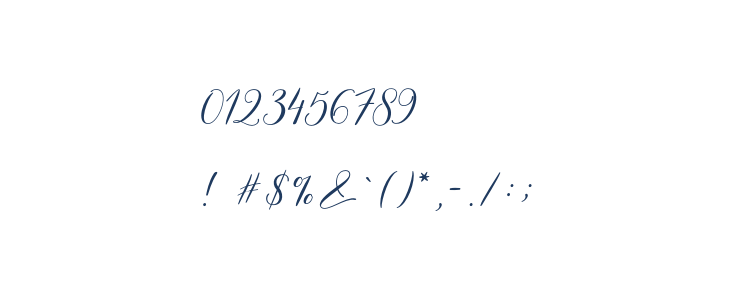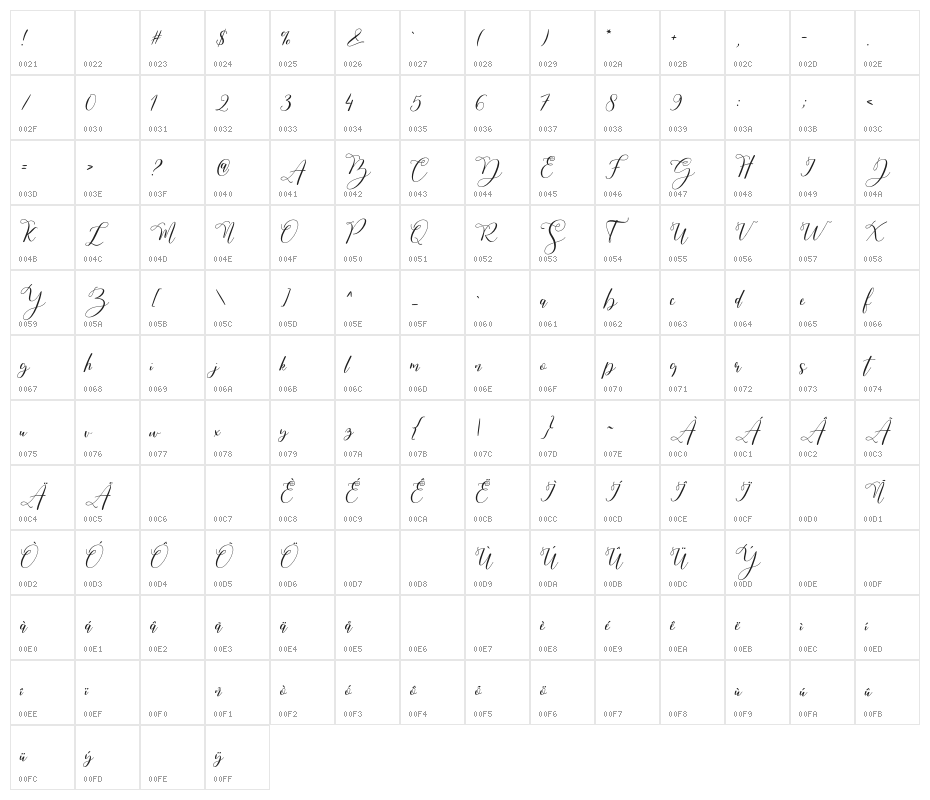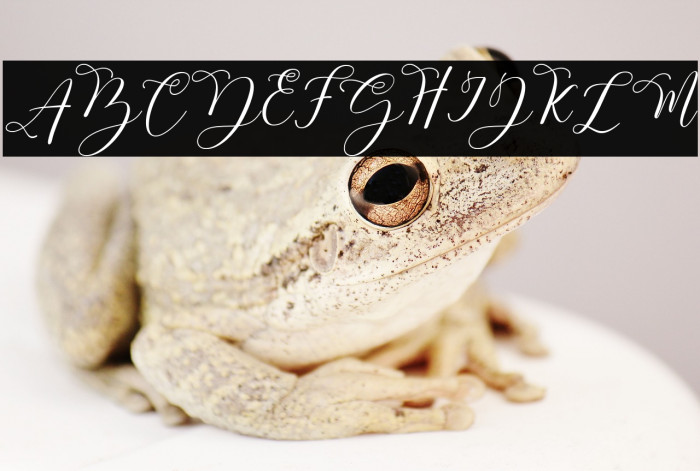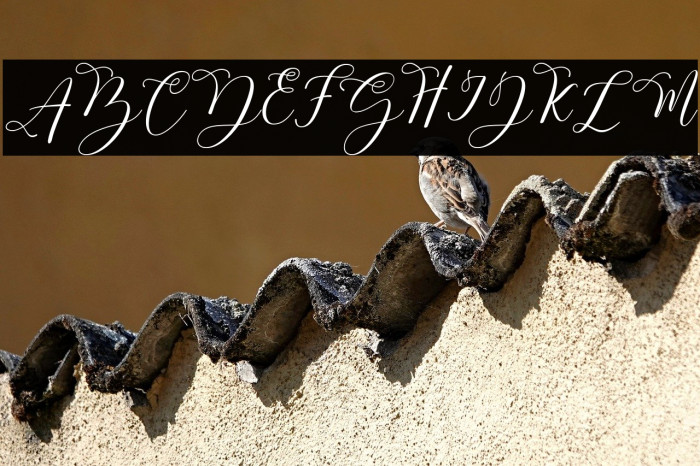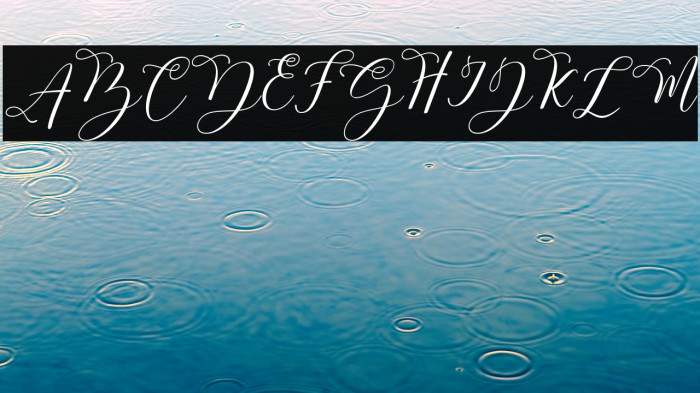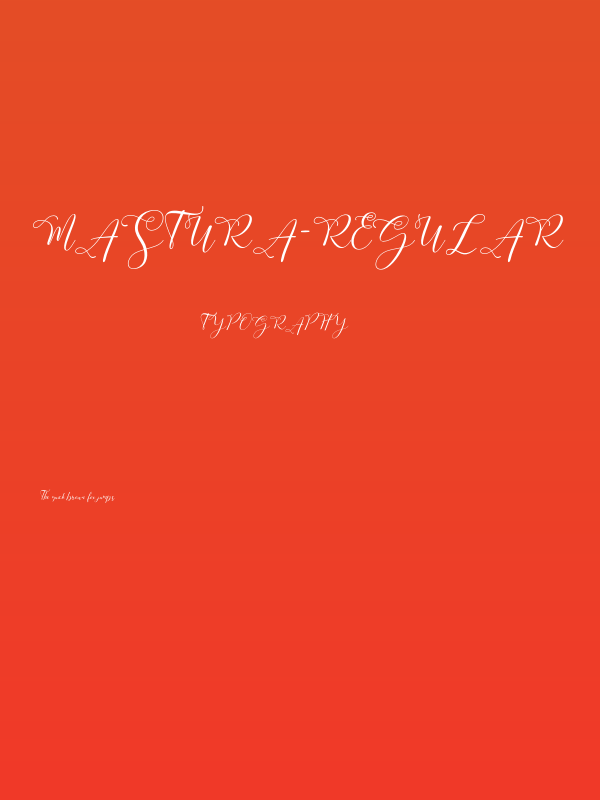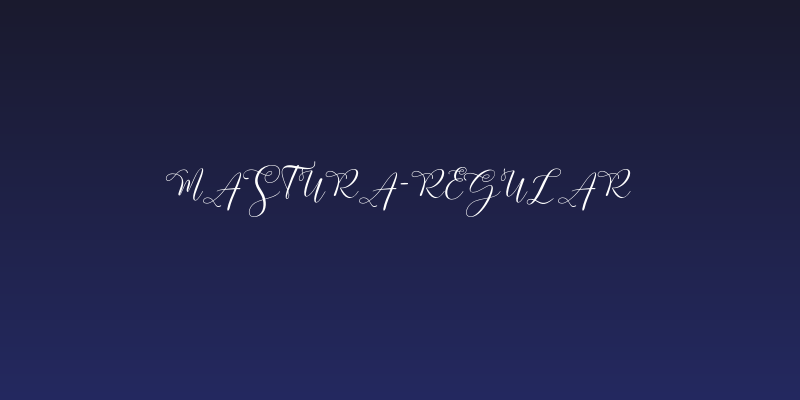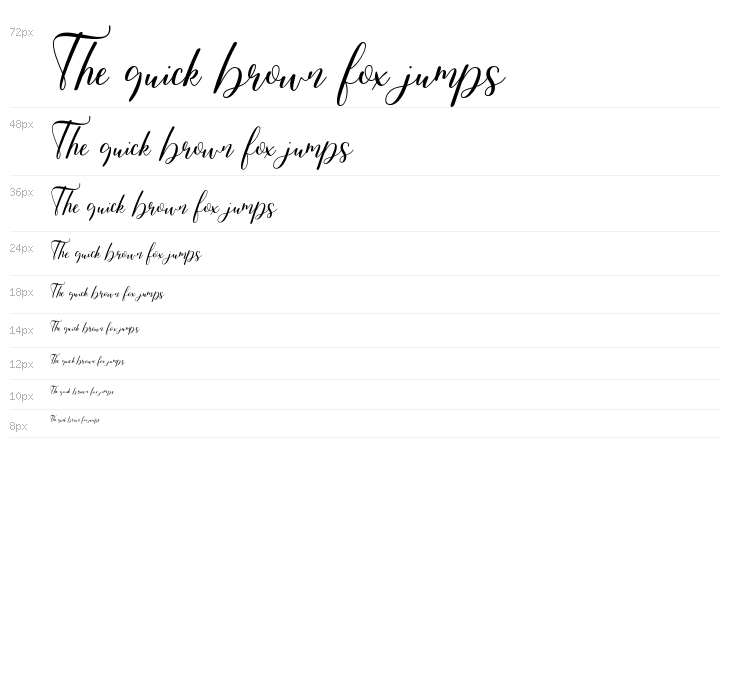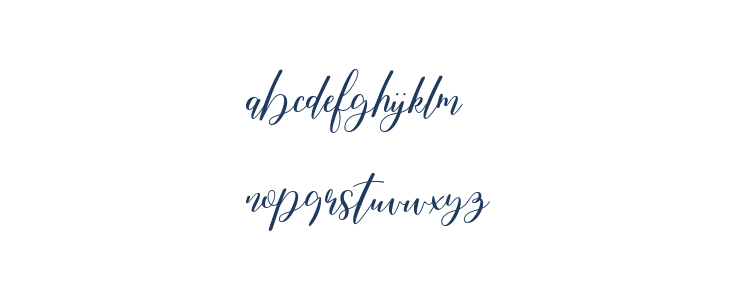
Mastura-Regular Font
Mastura-Regular Description
This elegant script font features flowing, cursive letterforms with a sophisticated and artistic flair. The uppercase letters are adorned with intricate loops and swashes, adding a touch of luxury and refinement. The lowercase letters maintain a smooth and connected style, enhancing readability while preserving the font's decorative nature. Numbers and special characters are designed with the same attention to detail, ensuring consistency throughout. This font exudes a sense of grace and charm, making it ideal for projects that require a personal and stylish touch.